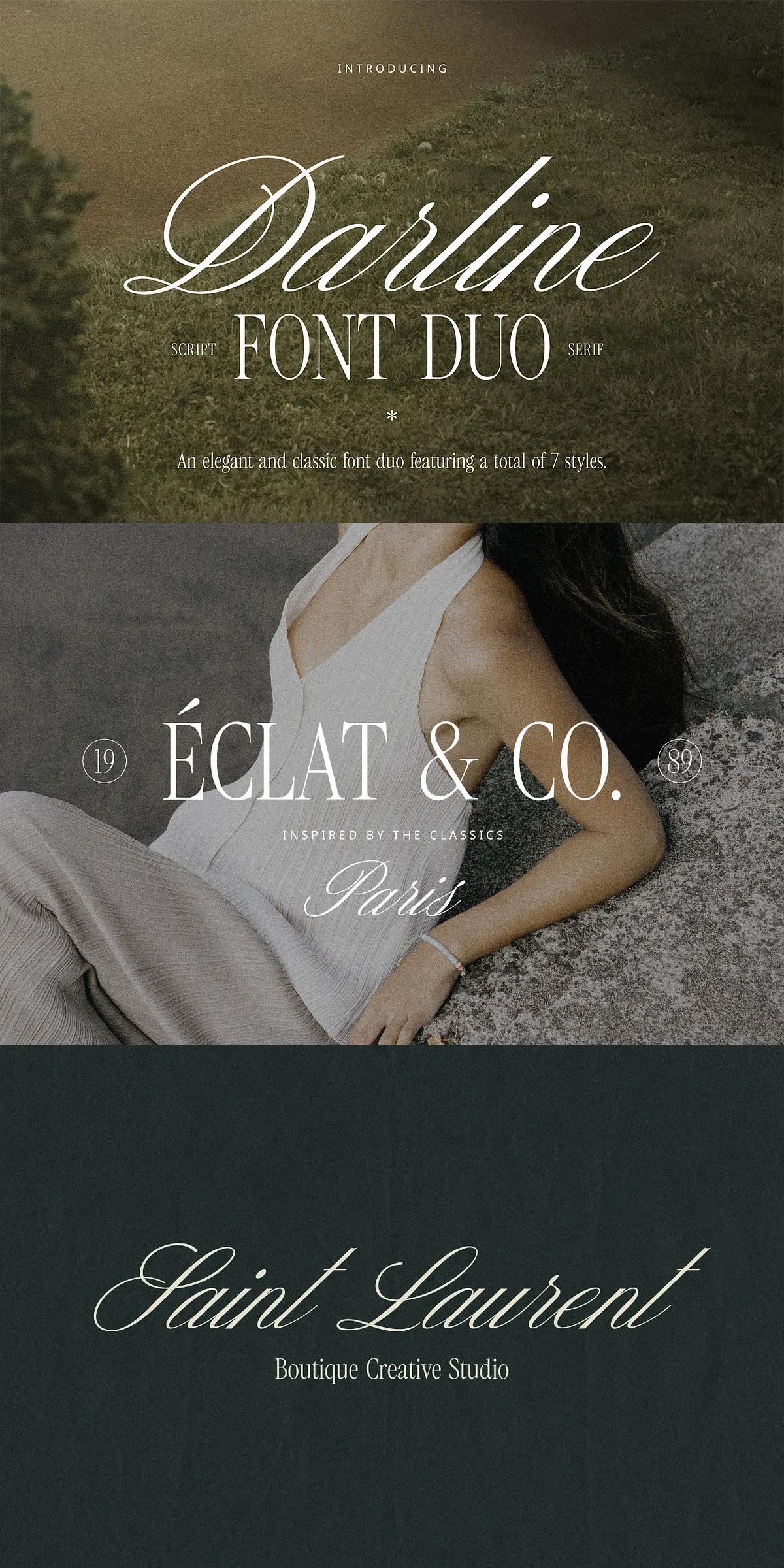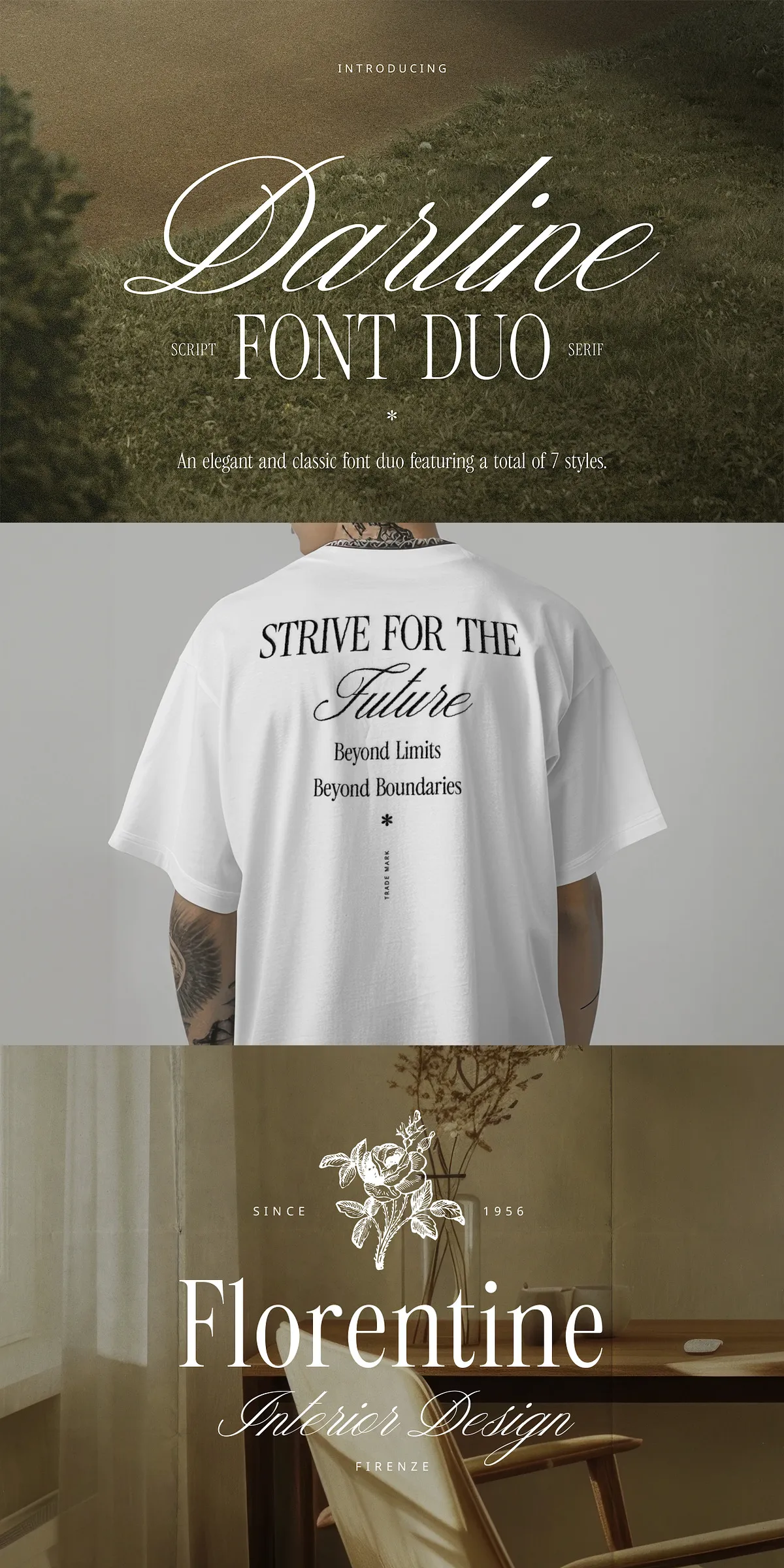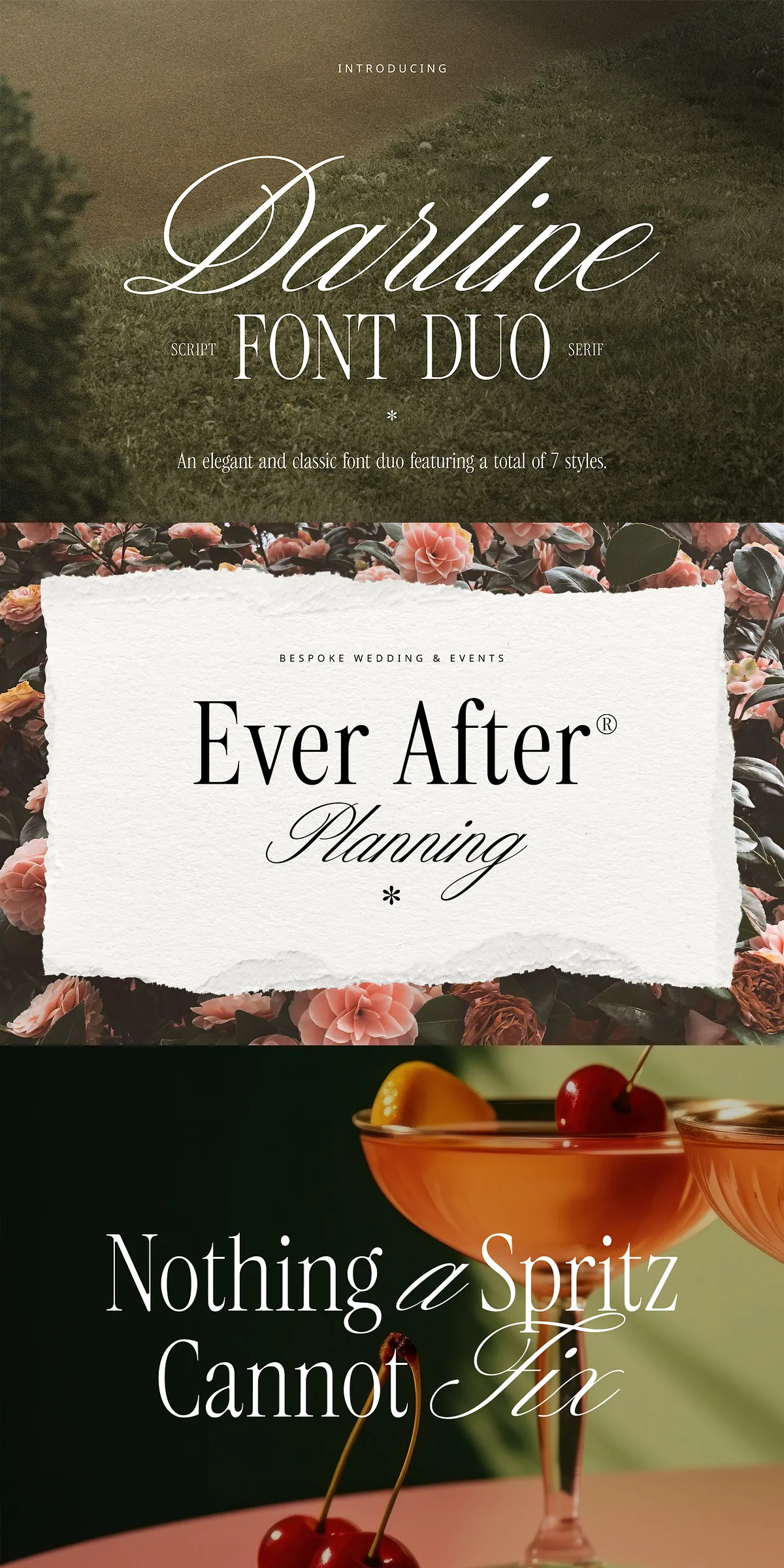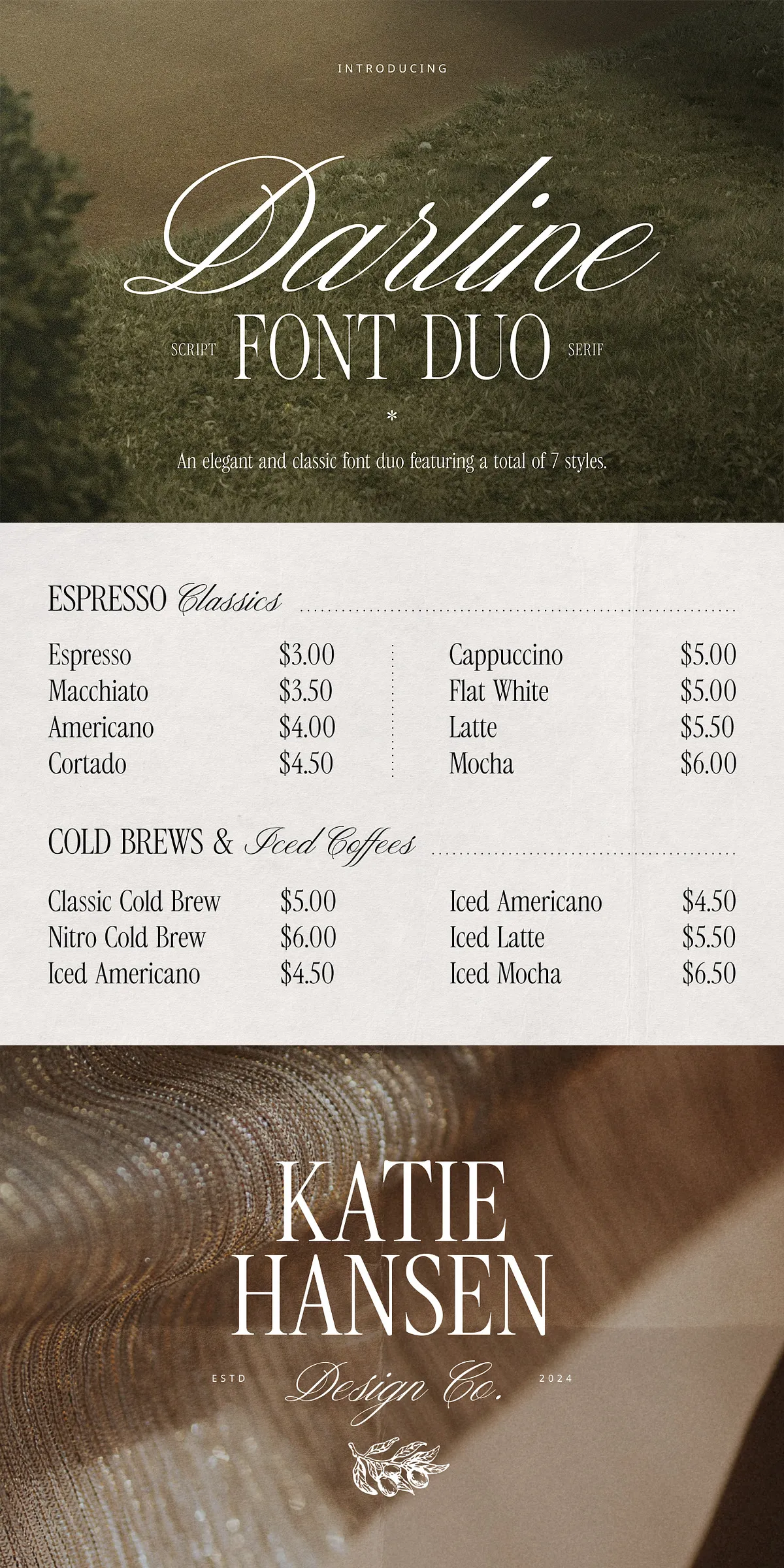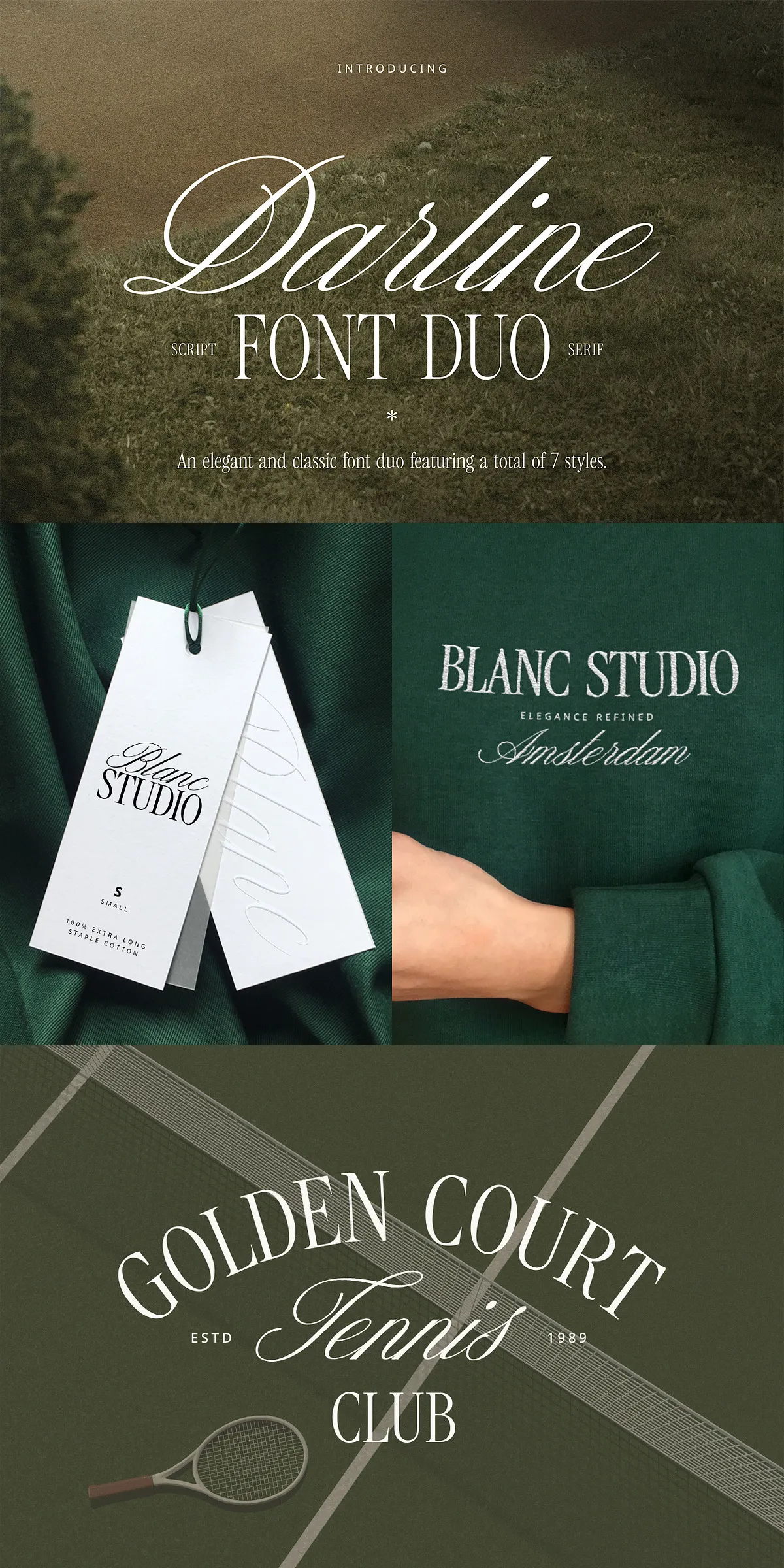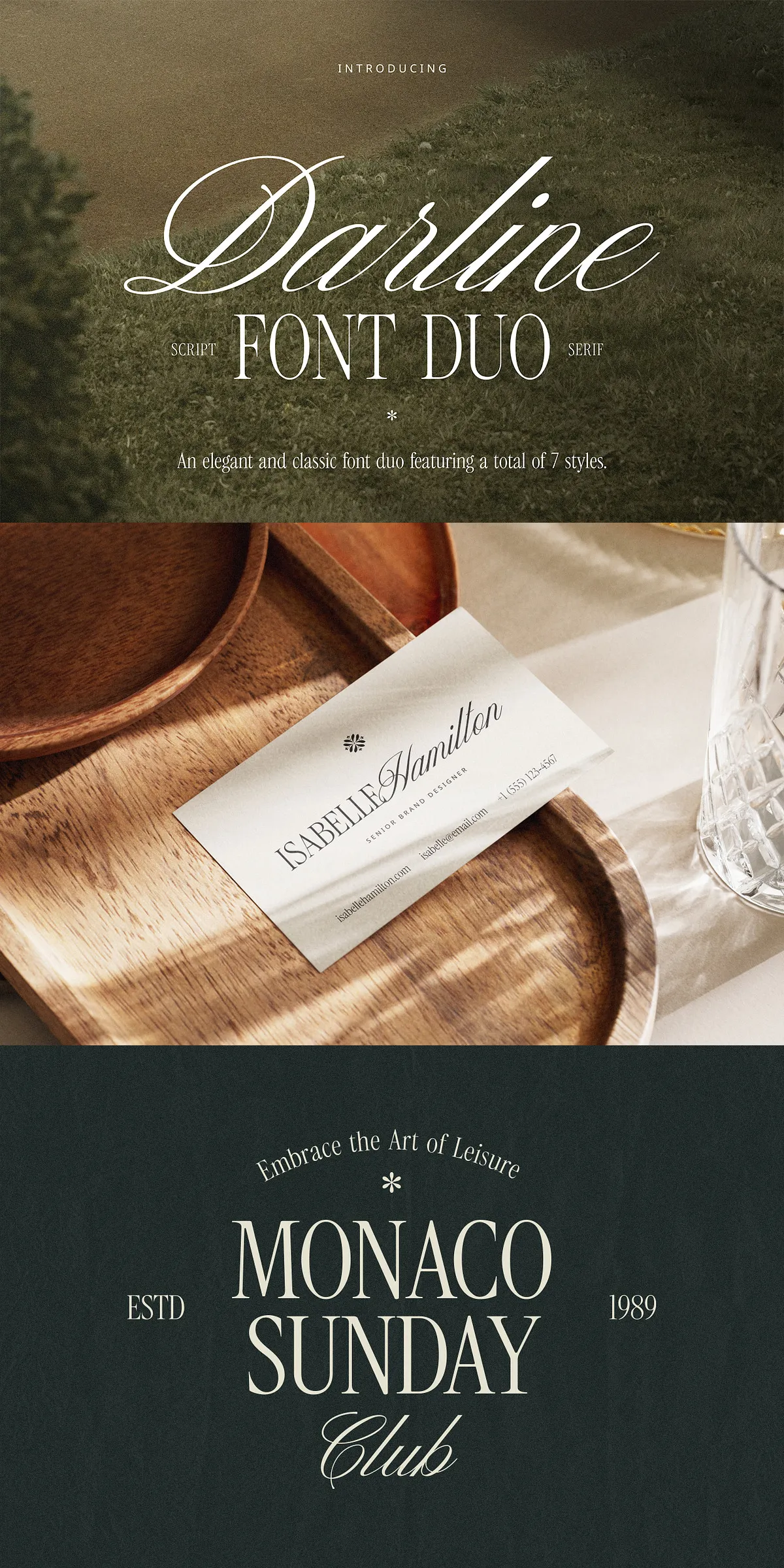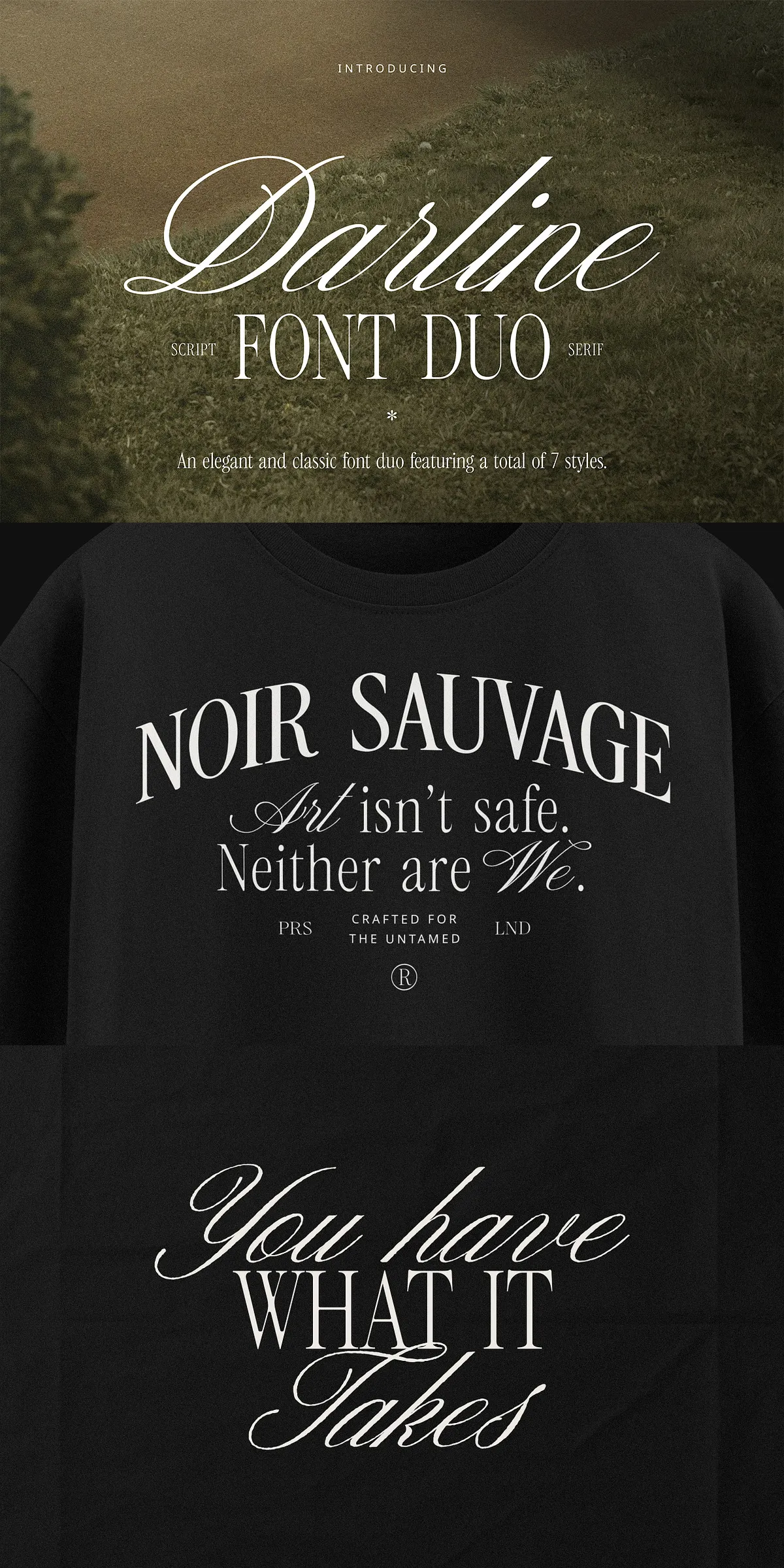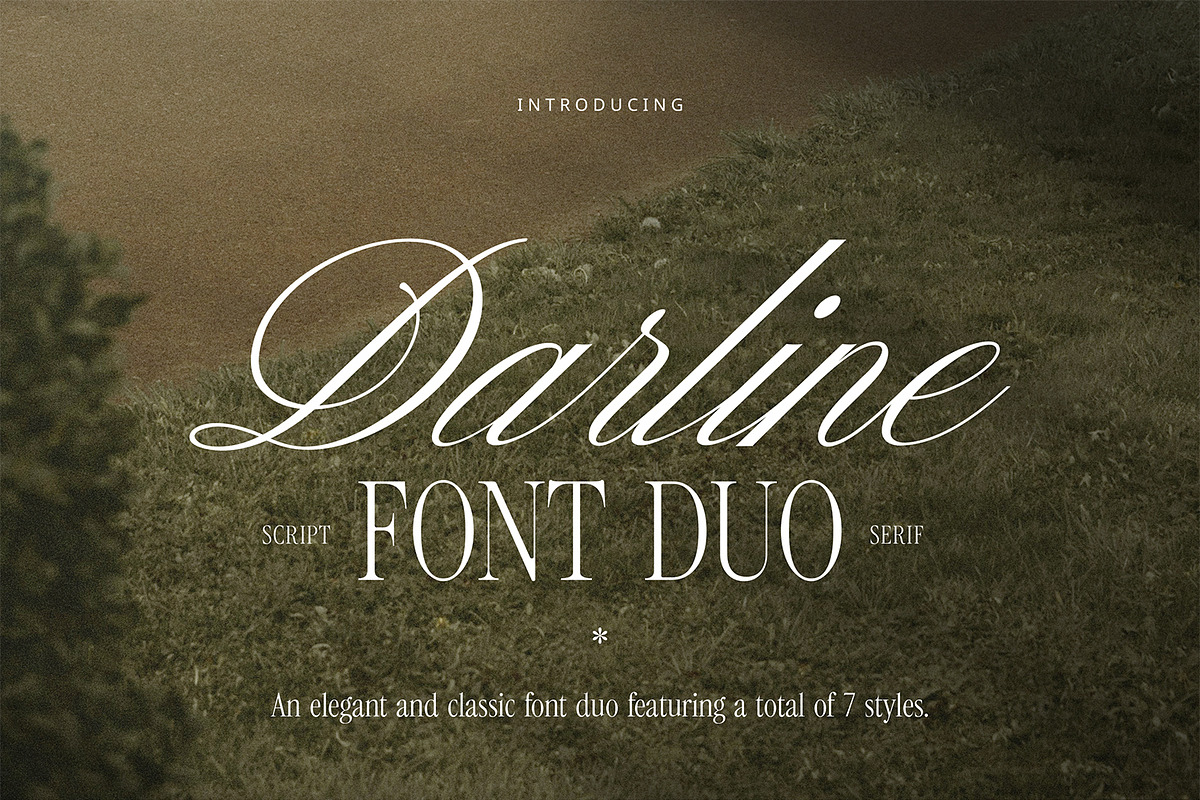
Darline Font Duo delivers an exceptional typographic experience through its perfect blend of serif and script styles. Designed to provide a refined and balanced appearance, this font duo brings an elegant yet versatile look to your creative projects. Whether you’re working on branding, packaging, editorial design, or invitations, Darline offers the flexibility to craft beautiful and distinctive typography that commands attention.
Elegant and Balanced Typeface Design
Darline Font Duo stands out as a thoughtfully crafted pairing that harmonizes the strong structure of serif fonts with the natural flow of script styles. The serif components come in three refined weights—Light, Regular, and Bold—allowing you to choose the appropriate strength and emphasis for your text. Meanwhile, the script styles add personality and charm with four unique variations: Regular, Regular Slanted, Aged, and Aged Slanted. This variety enables you to tailor your typographic expression, whether you want crisp modernity or rustic character in your designs.
Versatile Styles for Dynamic Typography
This font duo facilitates dynamic and layered typographic compositions. Use the serif fonts for creating clear and legible body text or striking headlines that anchor your design. Then pair them seamlessly with the expressive script styles to introduce accentuated flair, fluid motion, or vintage aging effects. This versatility makes Darline Font Duo suitable for a broad range of applications, from stylish editorial layouts and elegant wedding invitations to impactful logos and sophisticated branding materials.
Comprehensive Character Set and Punctuation
Balanced Serif and Script Pairing for Cohesive Branding
Combining serif and script fonts effectively can be challenging, but Darline Font Duo removes that barrier by delivering a harmonious balance between these two styles. This achievable synergy ensures your typographic choices work together, creating cohesive and refined branding that communicates professionalism with a creative edge. Whether you want to highlight a key word with a flowing script or maintain readability with a solid serif, Darline makes your typographic hierarchy clear and visually appealing.
Extensive Language Support for Global Projects
Darline Font Duo supports a wide variety of languages, allowing designers and brands to reach diverse international audiences confidently. This includes full compatibility with English, Italian, French, Spanish, German, Portuguese, Dutch, Danish, Norwegian, and Swedish. Such broad linguistic support makes Darline an ideal choice for global branding, marketing campaigns, and multicultural design initiatives.
Why Choose Darline Font Duo for Your Next Project?
Darline Font Duo elevates your creative projects by offering an elegant serif foundation combined with expressive script styles. Its range of weights and unique aged script variations provide you with the tools to develop sophisticated, visually appealing designs that stand out. This font duo is perfect for designers who aim for clarity, balance, and a touch of vintage charm with modern usability.
Experience the joy of designing with Darline Font Duo and bring a new level of refinement and harmony to your typographic work.